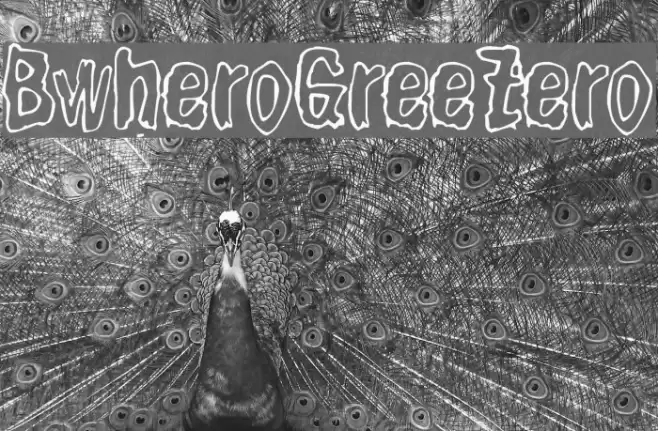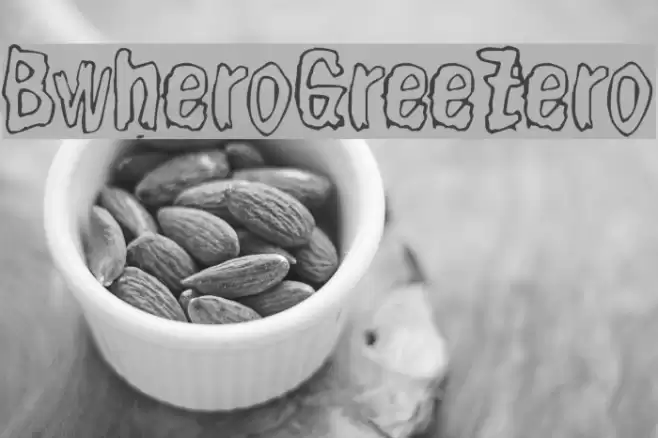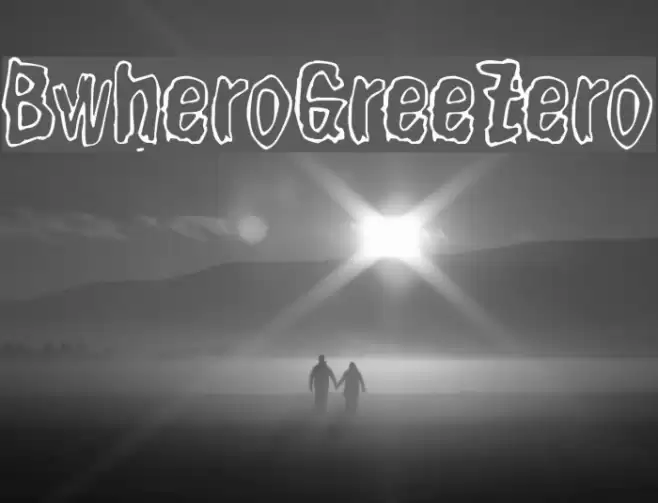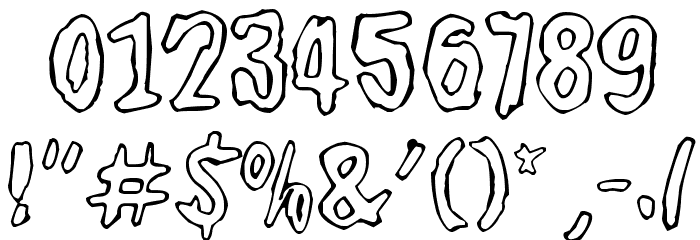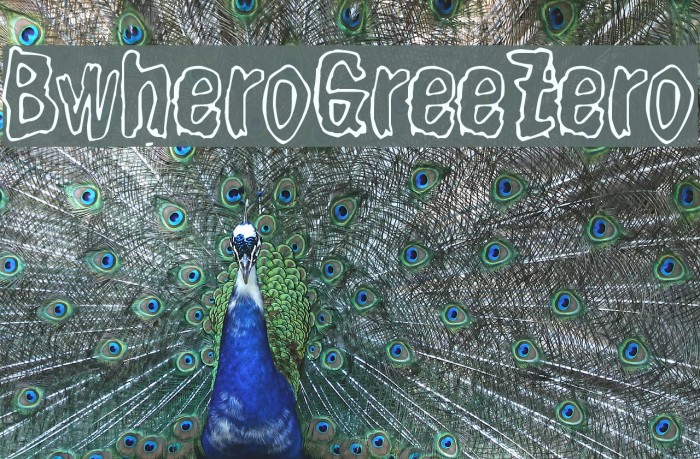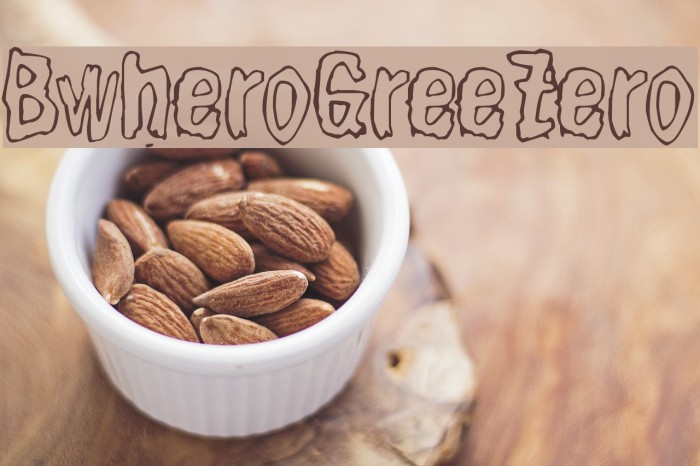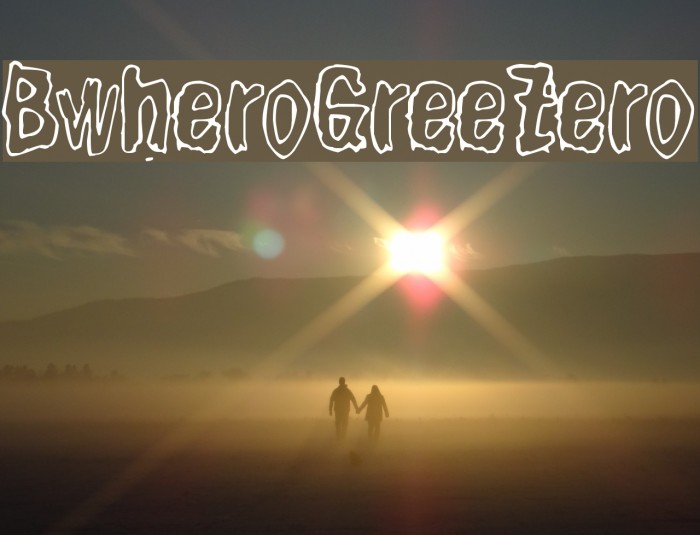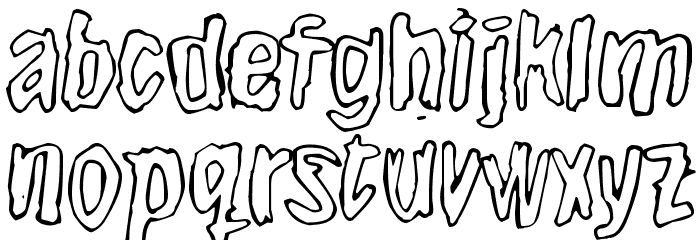
BwheroGreeZero Font
BwheroGreeZero Description
This font features a playful and quirky design, characterized by its irregular, hand-drawn appearance. The letters have a bold outline with uneven edges, giving them a dynamic and energetic feel. The uppercase and lowercase letters maintain a consistent style, with the uppercase being slightly more exaggerated in form. The numbers and special characters follow the same whimsical style, ensuring a cohesive look across all elements. This font's unique personality makes it stand out, perfect for projects that require a fun and informal touch.
A playful, hand-drawn font with bold outlines and irregular shapes from Cartoon fonts.
- Proposed Projects: Ideal for children's books, comic strips, playful branding, and creative posters.